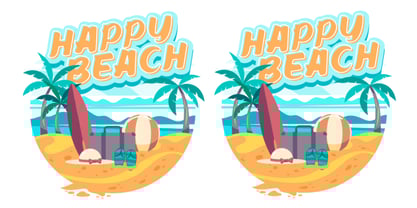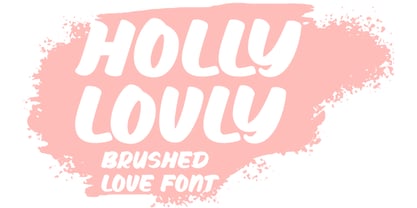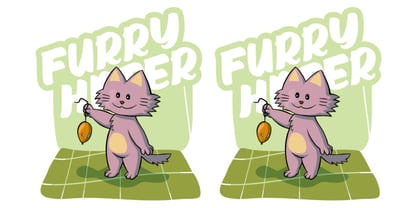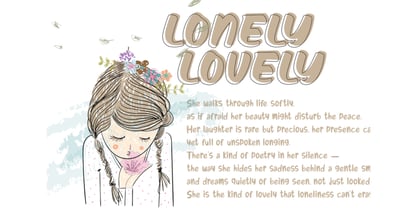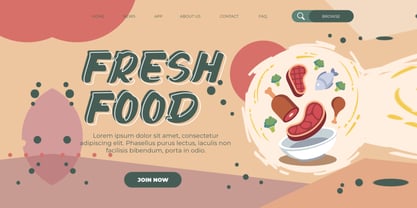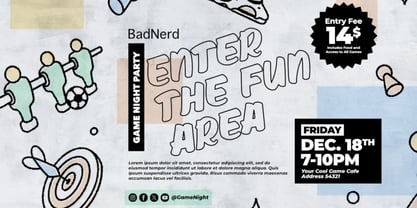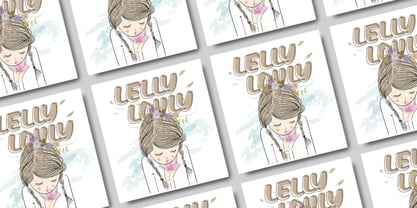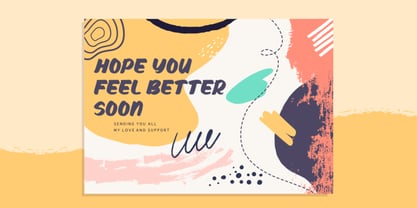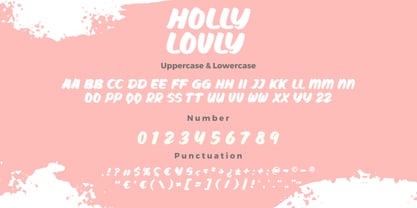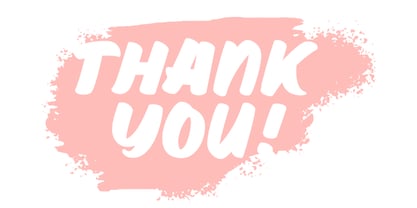
Holly Lovly
by Bayuktx
The Holly Lovly Font Family was designed by Bayu Aji Fais Mursid and published by Bayuktx. Holly Lovly contains 1 styles.
Holly Lovly Brush Font is a playful and expressive handwritten typeface with a natural brush texture that brings warmth, charm, and authenticity to your design. Each stroke feels organic and fluid, giving every word a lively hand-painted look filled with personality and emotion. Inspired by modern calligraphy and casual brush lettering, this font perfectly balances elegance and spontaneity — ideal for designs that want to appear joyful, romantic, or creative. This font is great for branding, invitations, quotes, social media posts, packaging, and logo design, offering a handmade aesthetic that feels both personal and professional. Key Features : * Uppercase & Lowercase * Numerals & Punctuation * Multilingual Support * PUA Encoded & OpenType Features Suitable For : * Wedding Invitations & Stationery * Logos & Branding * Quotes & Greeting Cards * Social Media Design * Packaging & Craft Projects With Holly Lovly Brush Font, your designs will radiate warmth, creativity, and a heartfelt handmade touch — making every project feel truly special and memorable.